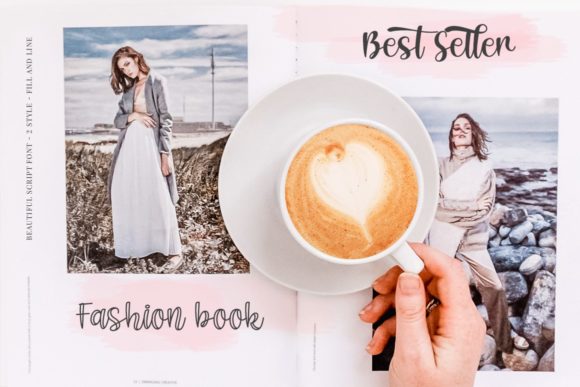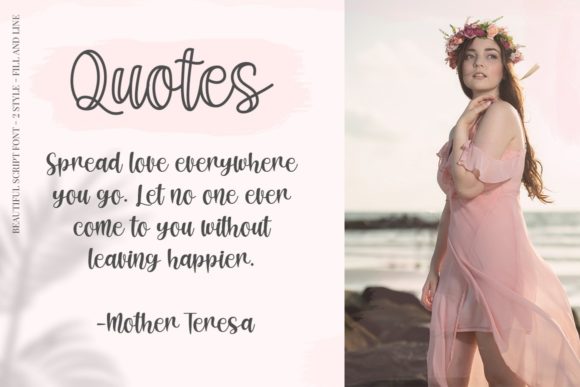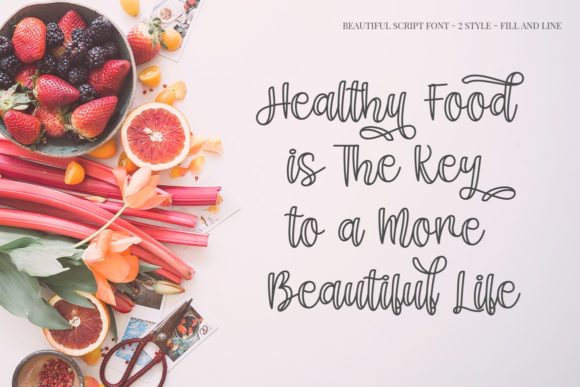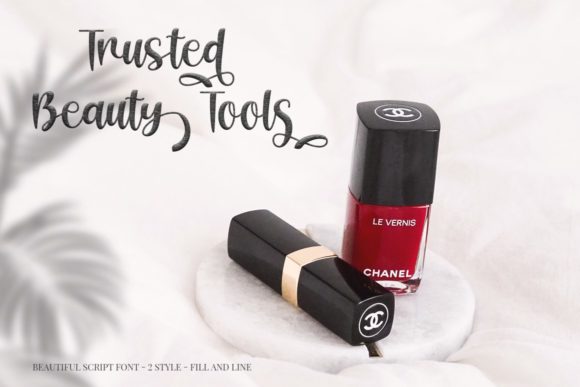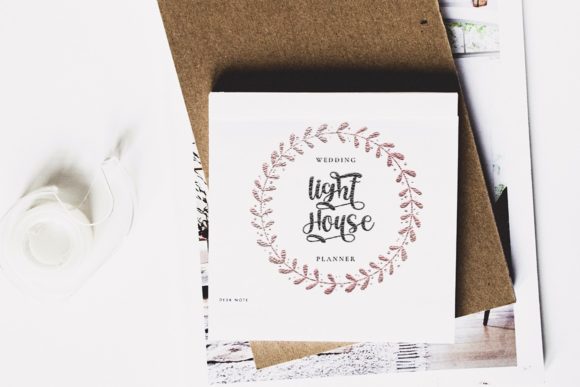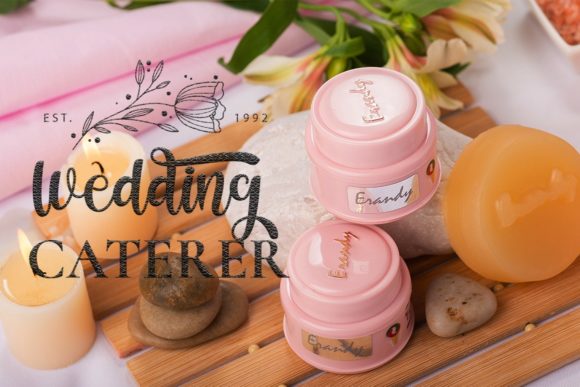
Introduction to Shecarea Font
As designers, we’ve all had that moment when we’re working on a creative project and the perfect font just slips away from us. The words, the quotes, the logos – everything feels incomplete without the right typography. But what if I told you that I’ve stumbled upon a font that will make all your design dreams come true? Enter the enchanting Shecarea Font, a magical and delicate font that adds a touch of elegance to any design.
Whether you’re working on greeting cards, business cards, or logos, Shecarea Font is the perfect design resource to elevate your project. Its high-quality glyphs and swashes make it a valuable asset for any designer. Plus, with its transparent background, you can easily use it on any design element without worrying about distractions.
Key Features of Shecarea Font
- High-quality design resource ideal for creative projects and personal use
- Includes a range of characters, including uppercase and lowercase letters, numbers, and special symbols
- Unique, hand-drawn design that adds a personal touch to any creative project or design
Honest Review: Shecarea Font
I recently stumbled upon the Shecarea Font while searching for a new design resource for a creative project. At first glance, I was drawn to its modern and sleek aesthetic, which I think would be perfect for a variety of design applications.
Here are some things that work well for the Shecarea Font:
- High-quality design: The font is incredibly detailed and smooth, making it a joy to work with.
- Transparent background: The ability to use a transparent background is a game-changer for designers who want to create complex compositions.
- Limited language support: Unfortunately, the Shecarea Font only supports a limited number of languages.
- No bold or italic variations: While the regular weight is beautiful, I wish there were more options available for creating emphasis.
Overall, I’m really impressed with the Shecarea Font. While it may not be perfect, its strengths far outweigh its limitations. If you’re looking for a high-quality font for your next creative project, I highly recommend giving the Shecarea Font a try. ✨
How to Use Shecarea Font
Tips for Getting the Most Out of Shecarea Font
Use the Shecarea Font in combination with other design elements, such as graphics and images, to create a visually appealing design.
The Shecarea Font is ideal for a variety of creative projects, including logos, brochures, and social media graphics. Its unique style and transparent background make it a great choice for modern and minimalist designs.
Alternatives to Shecarea Font
Great Vibes is a high-quality, elegant script font that’s perfect for creative projects. It features a transparent background and is ideal for use in logos, invitations, and other design elements. Great Vibes is a popular alternative to Shecarea Font, offering a more refined and sophisticated look.
Pacifico is a beautiful, modern script font that’s perfect for designers looking for a high-quality design resource. It features a clean and minimalist design, making it ideal for use in logos, brochures, and other marketing materials. Pacifico is a great alternative to Shecarea Font, offering a more relaxed and casual look.
Alex Brush is a elegant, handwritten font that’s perfect for creative projects. It features a high-quality design and a transparent background, making it ideal for use in logos, invitations, and other design elements. Alex Brush is a popular alternative to Shecarea Font, offering a more artistic and whimsical look.